10 beautiful coding fonts to upgrade your VS Code experience
10 breathtaking fonts to upgrade your dev quality of life and coding enjoyment.
1. Fira Code
It’s extremely popular and for good reason.
This was where I first discovered the magic of ligatures.
Ligatures — those gorgeous character combos that naturalize your code.
Made by Mozilla (but hosted in the GitHub repo of some “tonsky” guy?)
2. Fantasque Sans Mono
An elegant font to bring out the joy in your workspace.
We used to call it Comic Sans Neue Mono because of the similarity to Comic Sans and Helvetica Neue.
3. Roboto Mono
100% chance you’ve seen a Roboto font somewhere.
YouTube, Android, Material Design… this is Google’s baby.
So this is Roboto for coding.
You’ll see it all over the place in Google Dev Docs too — Android Dev, Firebase, GCP…
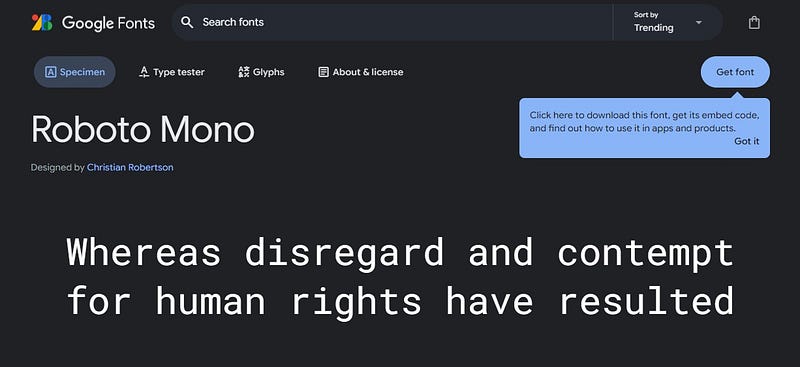
4. Anonymous Pro
Made specifically for coding with excellent readability — thanks to consistent spacing and clear character descriptions.
It reminds me of the Monospace font in that Notepad++ editor I used in the past (underwhelming compared to VS Code ofc).
5. Cascadia Code
Fira Code was great but I found the characters too tall.
So I switched to this beauty that I’ve been with ever since.
Supports ligatures too:
6. Noto Sans Mono
Clean and modern font that renders perfectly across multiple screen sizes and languages.
7. JetBrains Mono
The lovely font you’ll find in WebStorm, IntelliJ and every other IDE from Jetbrains.
8. Comic Neue
It’s a comic-inspired coding font with an energetic appearance.
It may give you a certain feeling of casualness in your coding (for better or worse).
9. Pixelify Sans
The chunky, pixelated letter forms give you the nostalgia of all those old video games from the past.
10. Victor Mono
Clean and minimalist with excellent readability and gracefully cursive italics.
There’s a font here for every developer’s taste — all clear and breathtaking to upgrade your coding experience.